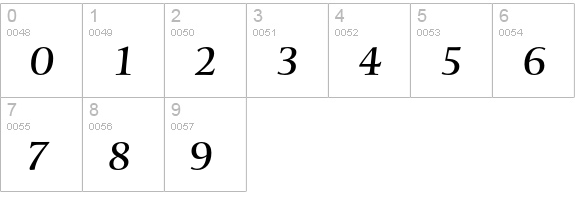
Mentor Std Italic Font Details
Mentor Std Italic is a distinctive, italic variant in the Mentor typeface family \xE2\x80\x94 well suited to design and typography projects.
The Mentor Std Italic font is a stylish and elegant typeface that exudes sophistication and modernity. Its sleek, slanted design adds a touch of flair to any project, making it perfect for branding, editorial design, and more. The italicized letters give a dynamic and energetic feel to any text, making it stand out and grab attention. What's even better is that this font is available for free download at FontsMarket.com. You can easily access this versatile typeface and incorporate it into your designs without any cost. Embrace the creativity and flexibility that Mentor Std Italic font offers, and elevate your projects to the next level. Download it today and let your ideas shine with this stunning and freely available font.